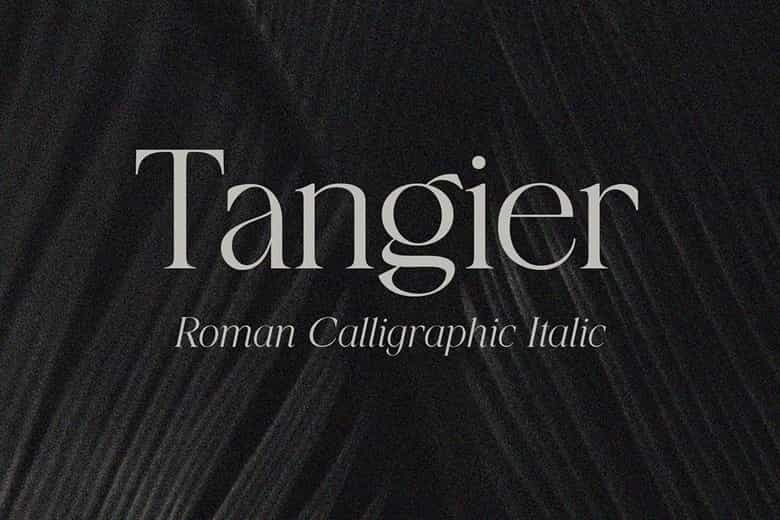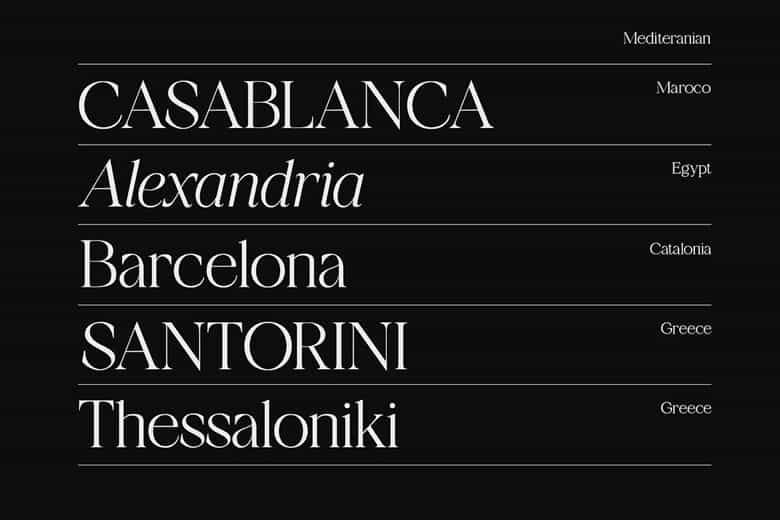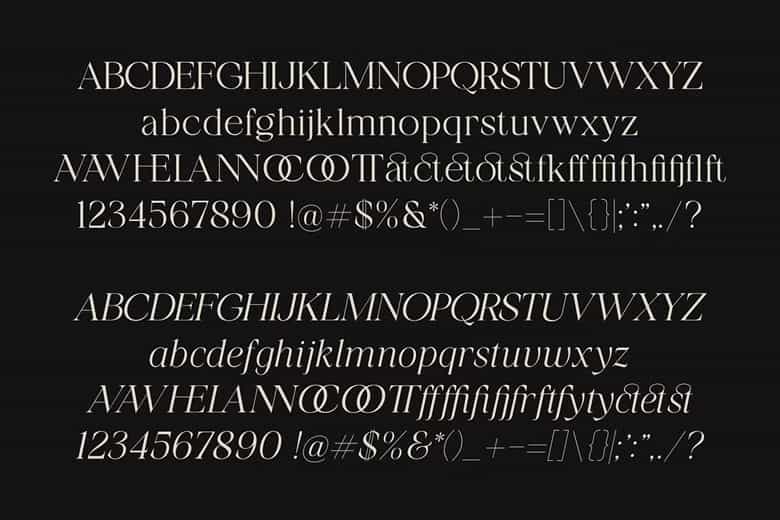
Tangier is a new set of serif fonts that contain a modern and stylish look. Stylish and elegant, Tangier is a perfect font for logos, titles and headlines of various projects, presentations and other visual materials. There are two types of the font – regular and italic – both of which have pronounced contrast of the thick and thin lines. The regular style is suitable for making bold statements and coming up with unique headlines or even for making the body text look more elegant, on the other hand the italic style can be used in subheadings or pulled quotes to give it a stylish look.